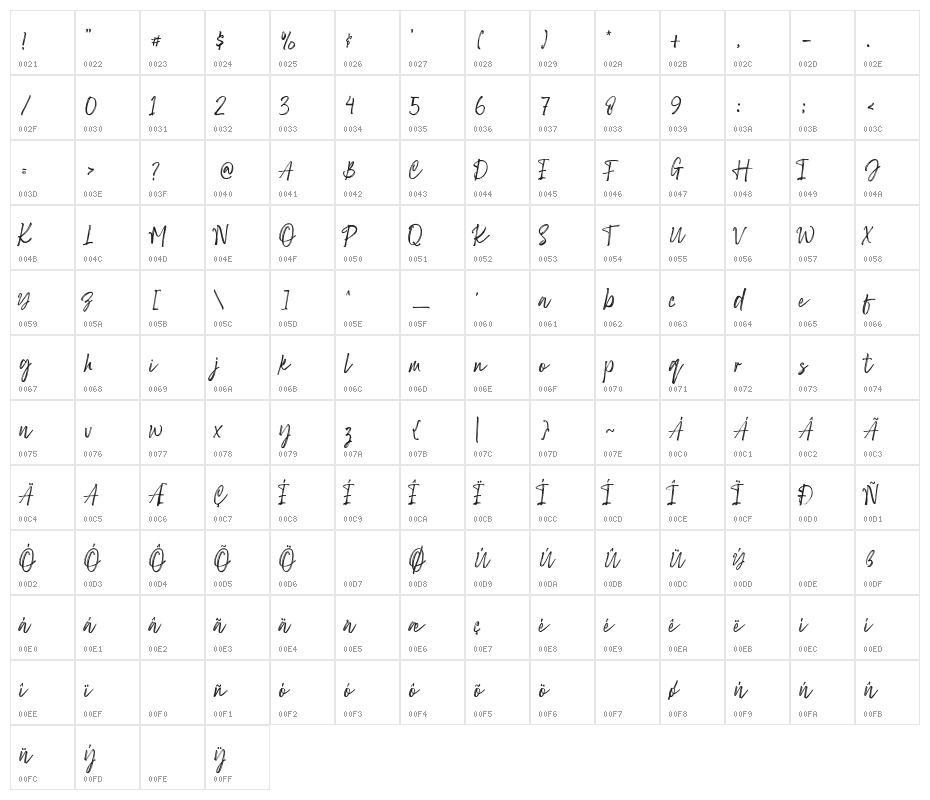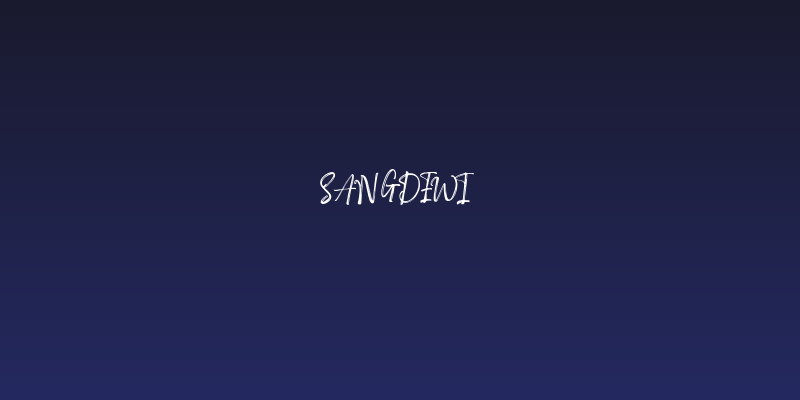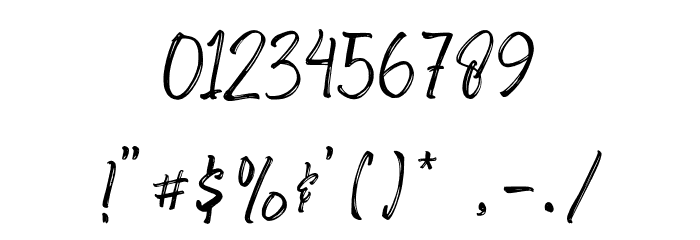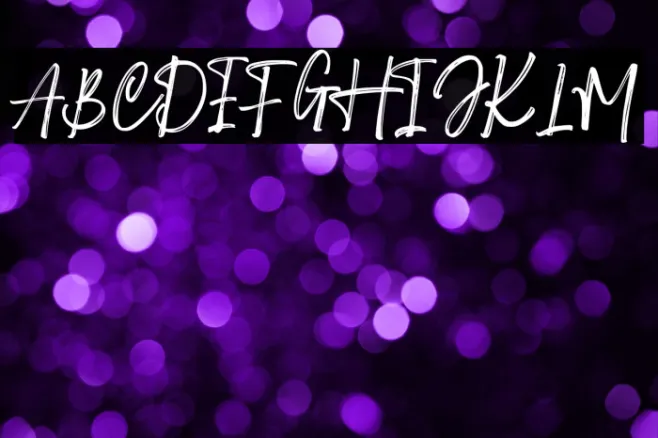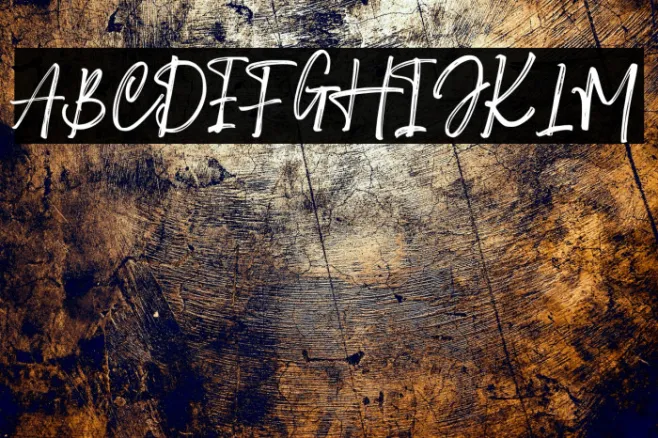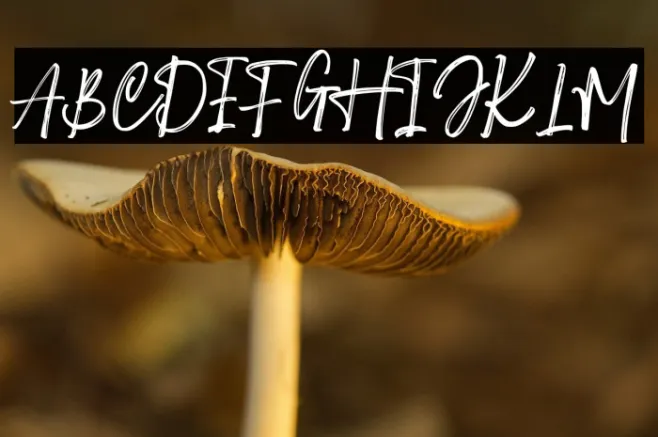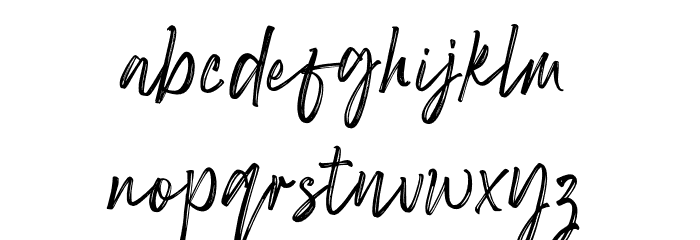
SangDewi Font
SangDewi Description
This font exudes a lively and dynamic character with its handwritten style, featuring fluid and slightly irregular strokes that mimic natural handwriting. The uppercase letters are bold and expressive, while the lowercase letters maintain a consistent flow, adding a touch of elegance. The numerals and special characters are crafted with the same attention to detail, ensuring a cohesive look across all glyphs. The font's playful yet sophisticated appearance makes it suitable for a variety of creative projects. Its unique style is perfect for adding a personal touch to any design.
| Proposed Projects | Ideal for invitations, greeting cards, branding, and social media graphics. |